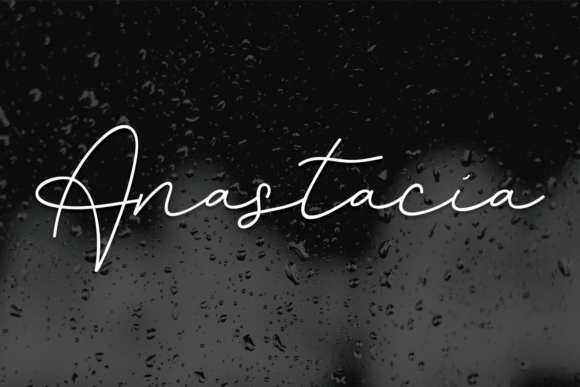
The Anastacia Font: A Designer’s New Best Friend
I still remember the day I stumbled upon the Anastacia font while working on a project for a high-end client. I had spent hours scouring the internet for the perfect font, but nothing seemed quite right. That was until I saw Anastacia – its elegant, handwritten curves immediately caught my eye, and I knew I had found the one. In this article, I’ll share my experience with this beautiful font, its features, and how to make the most of it in your designs.
- ✨ Exquisite handwritten design with a classy, calligraphic feel
- ✅ Contemporary and fresh, perfect for modern designs
- 💫 Highly legible, even at smaller font sizes
- 🎨 Versatile and suitable for a wide range of design projects
- 🤔 Some users may find the font a bit too ornate for very casual or playful designs
- ⚠️ Limited availability of certain characters or glyphs in certain font formats
- Experiment with OpenType features, such as ligatures and stylistic alternates, to add visual interest to your text
The Story Behind Anastacia
Anastacia was designed by a talented typographer who wanted to create a font that combined the elegance of traditional calligraphy with the freshness of modern design. Inspired by the flowing curves of handwritten script, Anastacia is the result of careful craftsmanship and attention to detail.
| Font Name | Anastacia Font |
| Author | Behind the ink |
| What is the Anastacia font best suited for? | Anastacia is a versatile font suitable for a wide range of design projects, from formal invitations to branding and advertising. |
| Does Anastacia support OpenType features? | Yes, Anastacia supports OpenType features, including ligatures, stylistic alternates, and glyphs. |